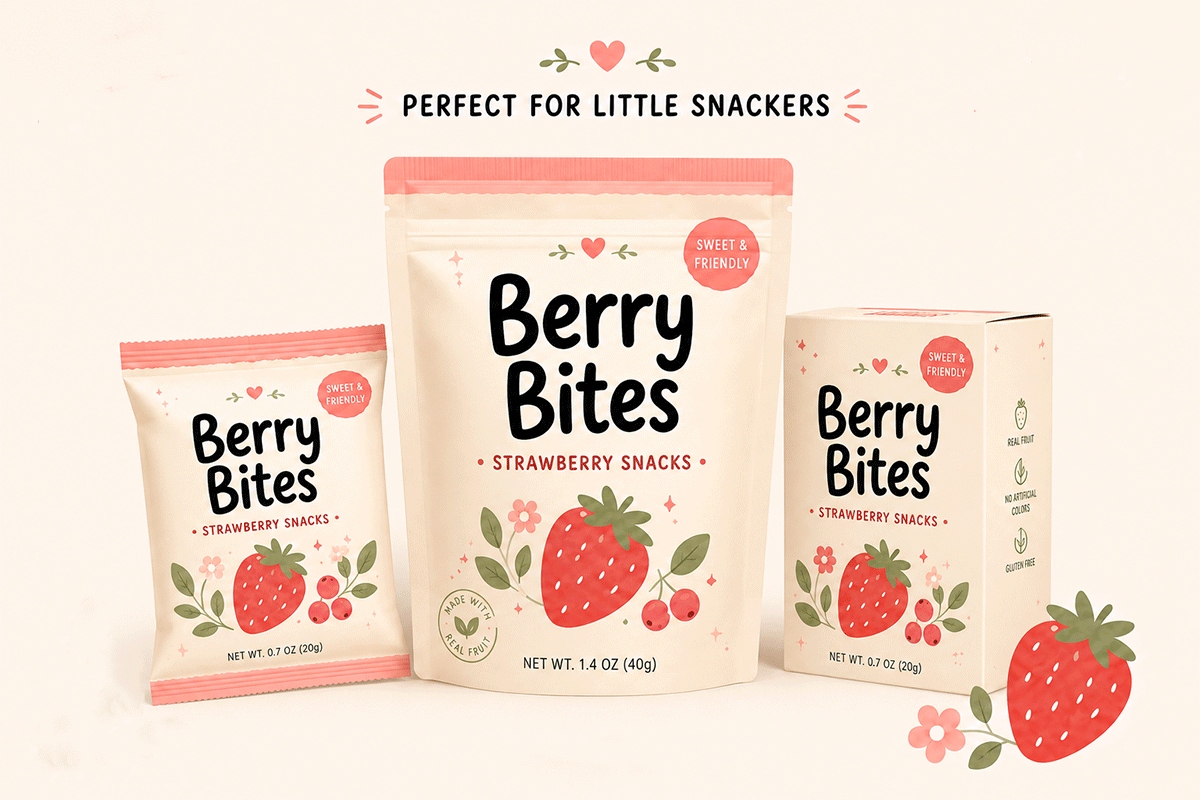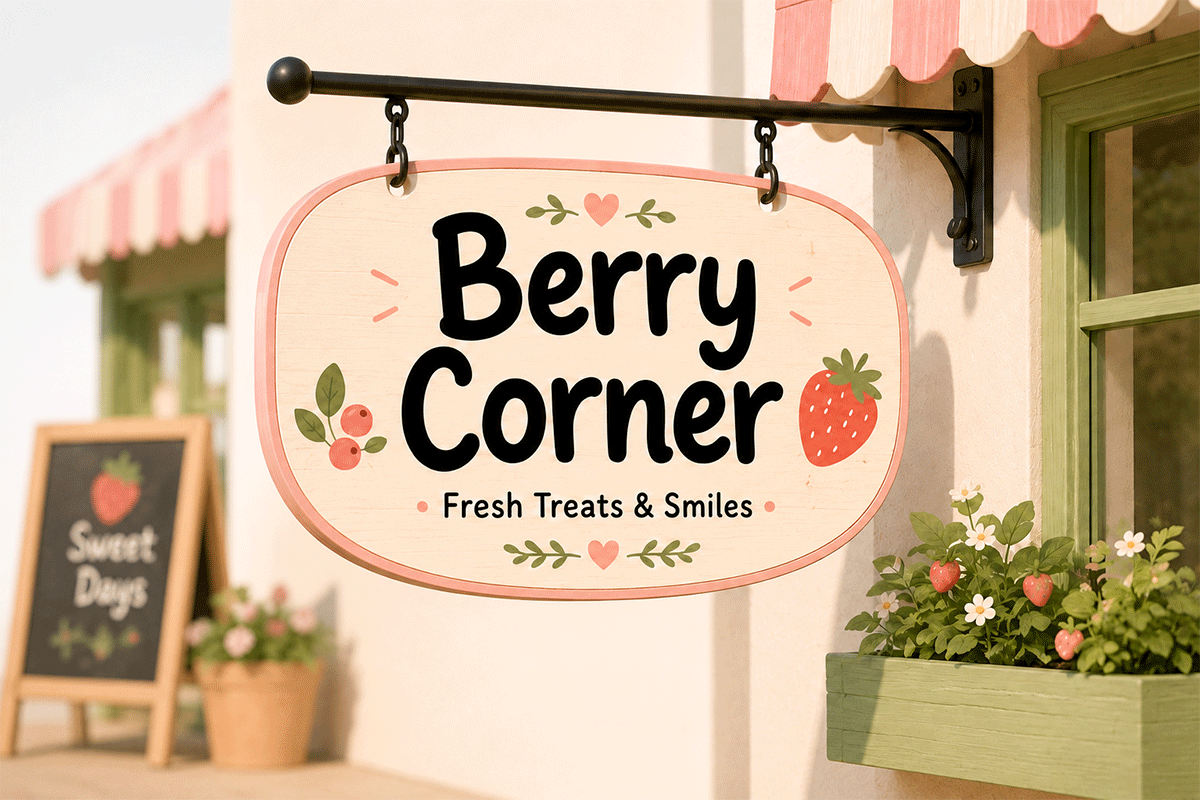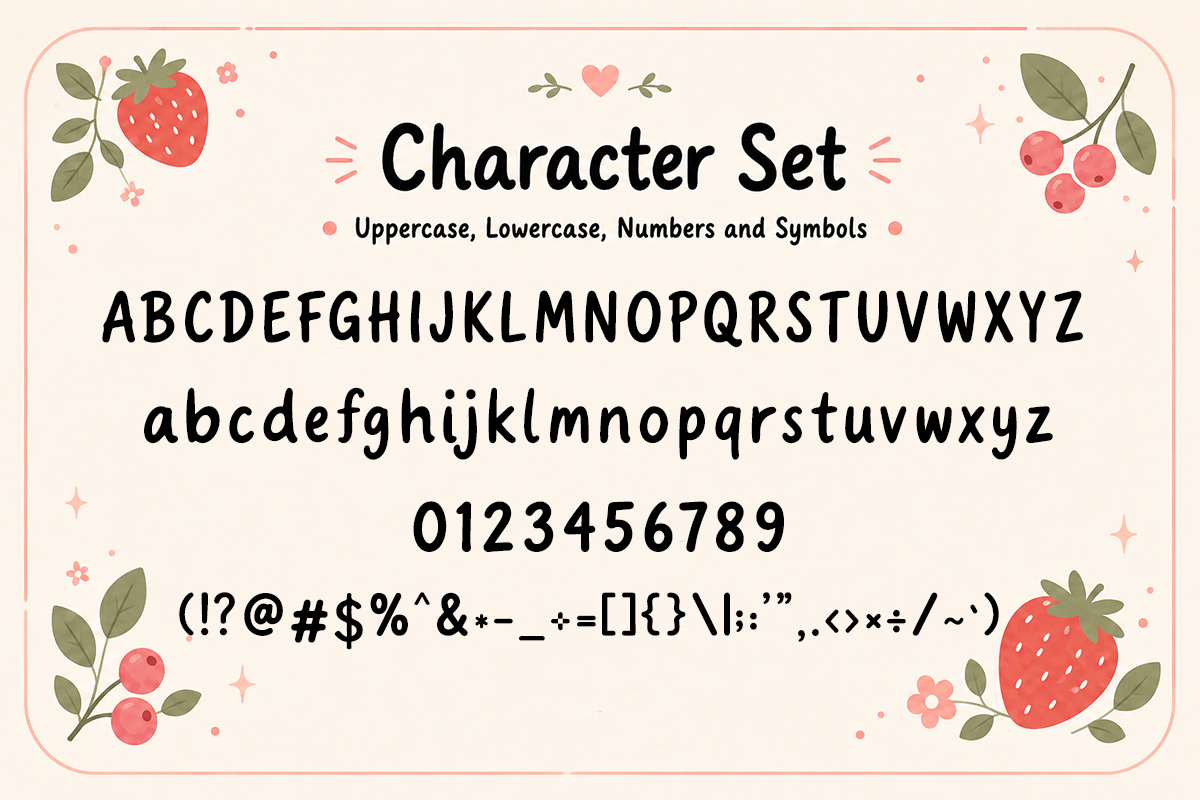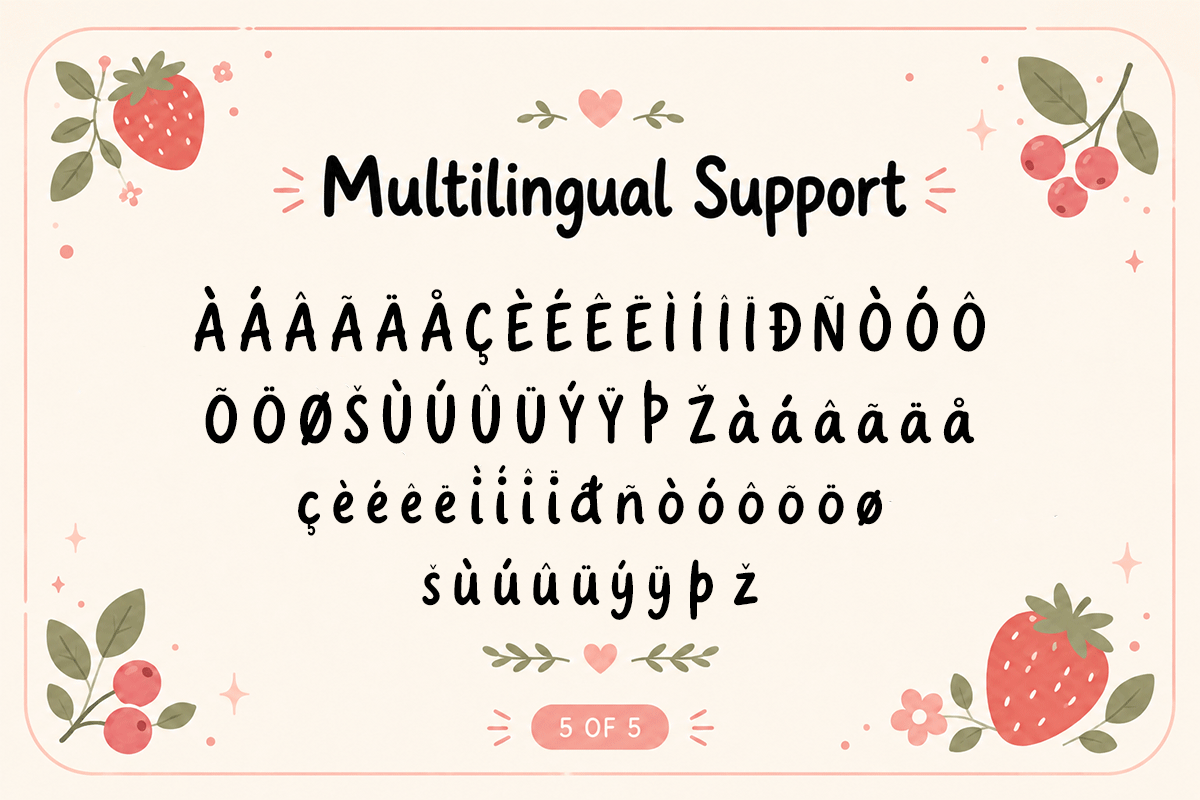
Wildberry A Modern Display Cute Font is a sweet and cheerful display font designed with soft curves, playful shapes, and a warm handmade personality. Its rounded letterforms create a friendly and approachable look, making every design feel fun, fresh, and full of charm.
Inspired by berries, nature, and joyful everyday moments, Wildberry A Modern Display Cute Font is perfect for creative projects that need a cute, casual, and welcoming style. Its bold yet smooth appearance makes it especially effective for headlines, logos, packaging, and playful branding.For our customers, we provide a collection of The Best display & E-sport Futuristic StyleFonts, each with its own unique styles and characteristics, so that our customers can create any design they want. We know what our clients love! That is why we prepare everything you may need in one simple downloadable package for you. Our easy-to-grab package contains all of the files you will ever need to create beautiful typography!